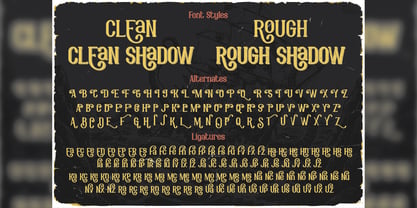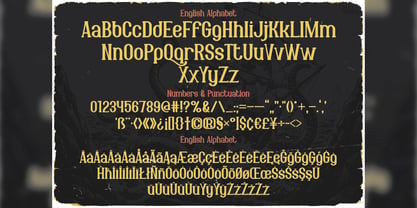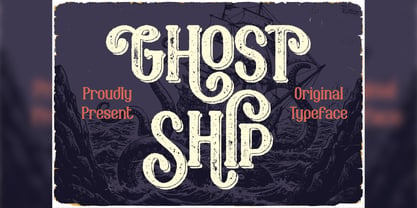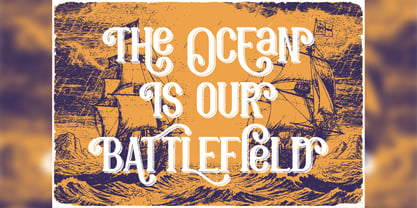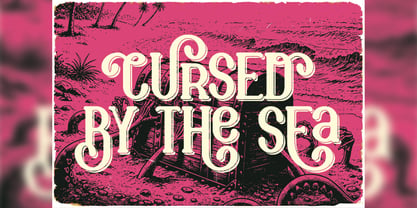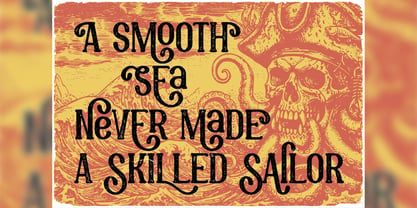
Ghost Ship
by Vozzy
The Ghost Ship Font Family was designed by Oleg Voznyy and published by Vozzy. Ghost Ship contains 4 styles and family package options. More about this family
Introducing "Ghost Ship," a distinctive font designed to make your headlines and accent inscriptions stand out. Perfect for attracting attention, this font features a rich array of additional characters, punctuation marks, and multilingual options, ensuring versatility across various languages. With a generous selection of standard ligatures, it enhances the visual appeal of your text (ensure your software supports this OpenType feature). "Ghost Ship" is an excellent choice for branding, web design, and editorial projects, adding a unique flair to your beautiful designs!
Designers: Oleg Voznyy
Foundry: Vozzy